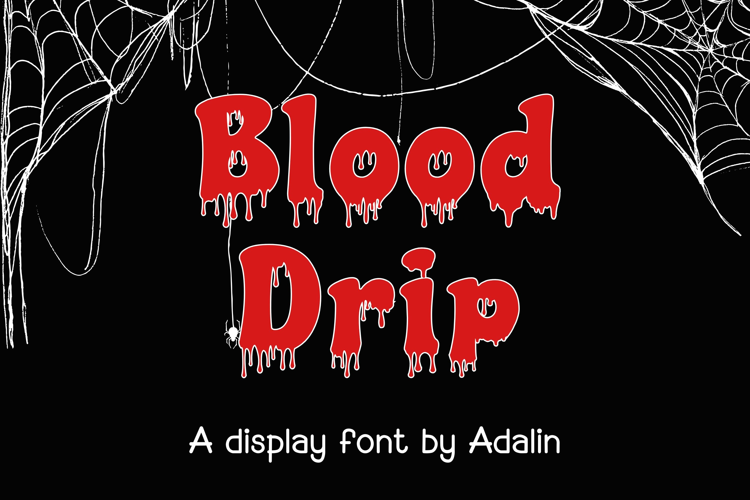
Dripping Blood Alphabet Lettering ABC Text Font Halloween Typeface OTF Illustration
A cartoon style font where you can create your own words and colour them to your vision!